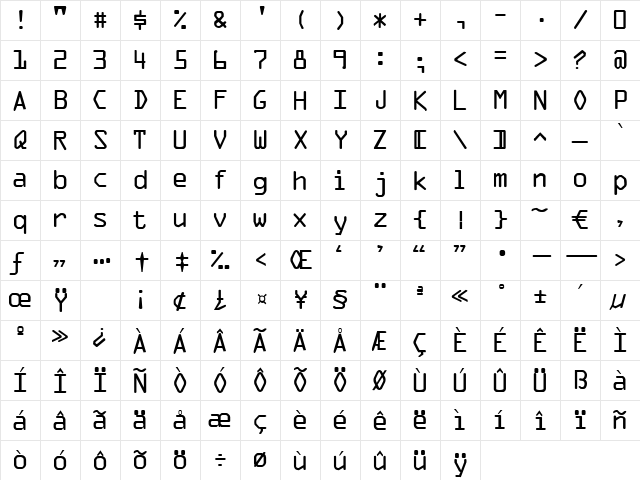
October Regular Font Preview
October Regular
Design Context for October Typeface
October takes a measured approach to typography — its balanced proportions and neutral character make it a reliable workhorse for both digital and print work.